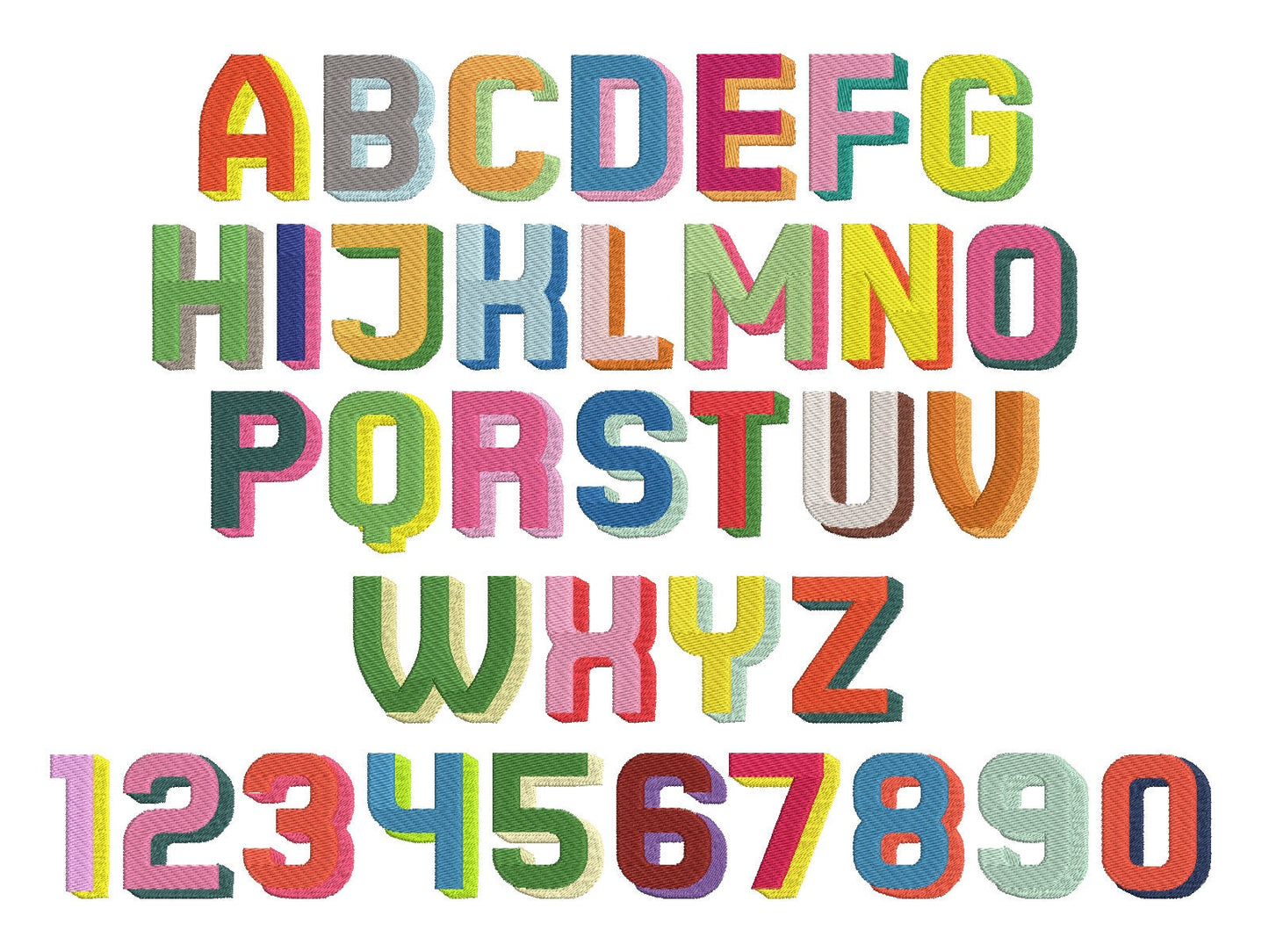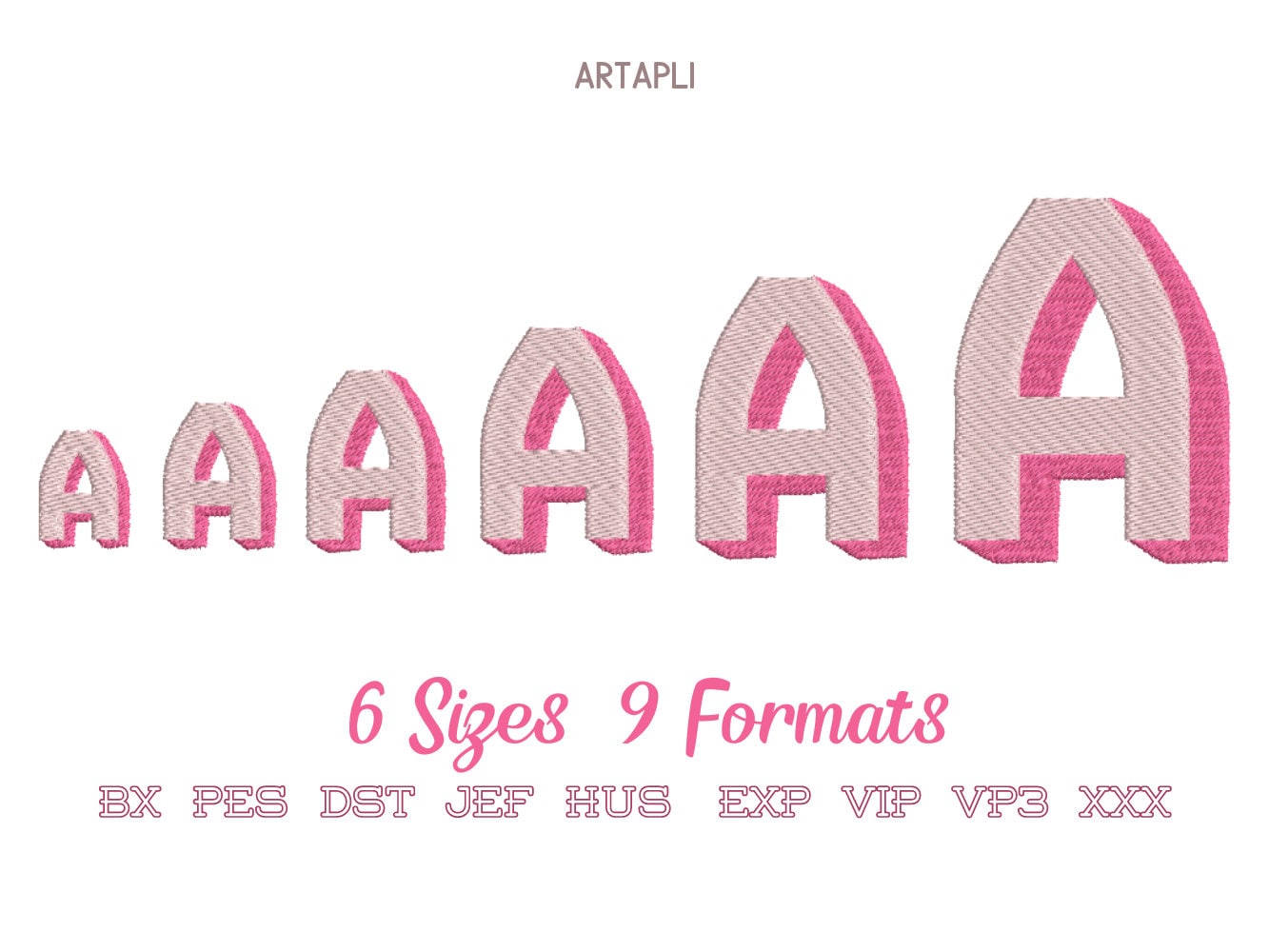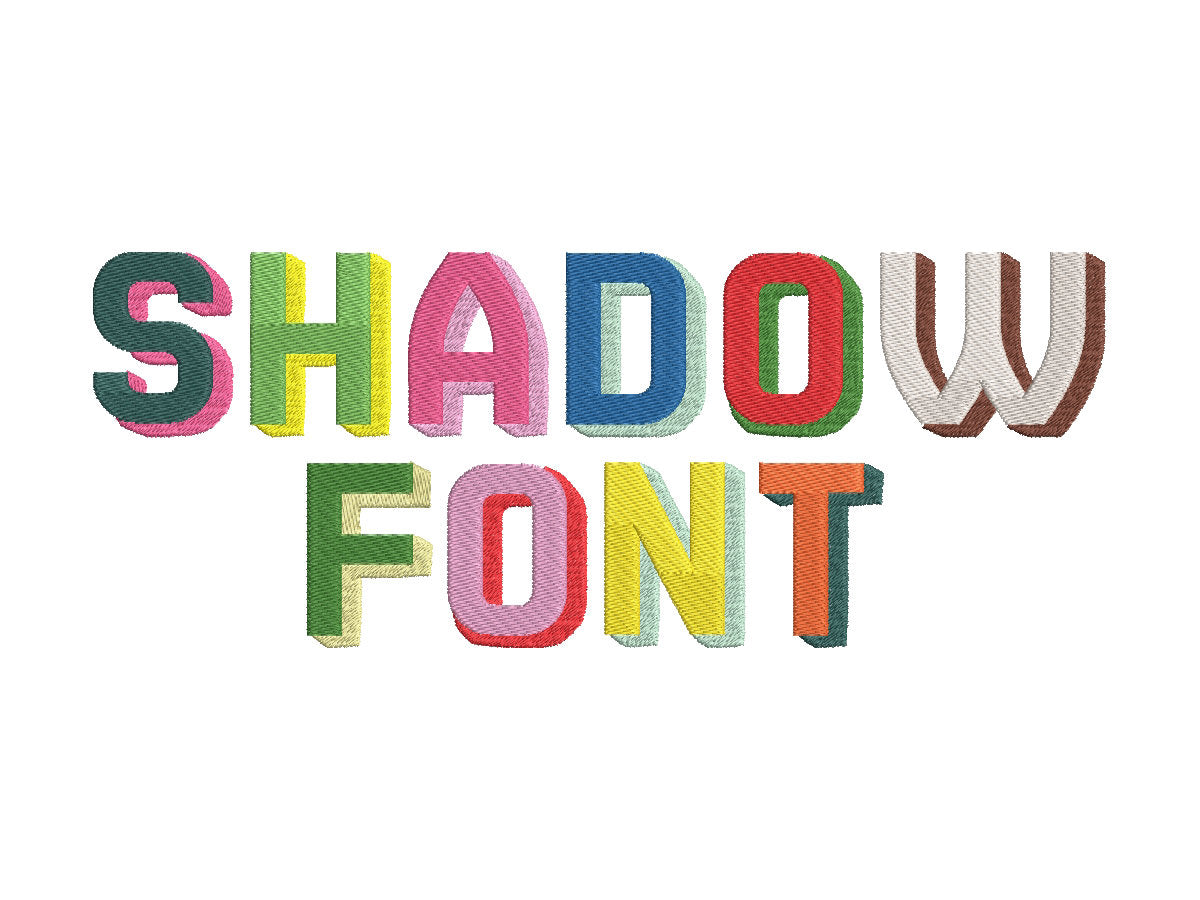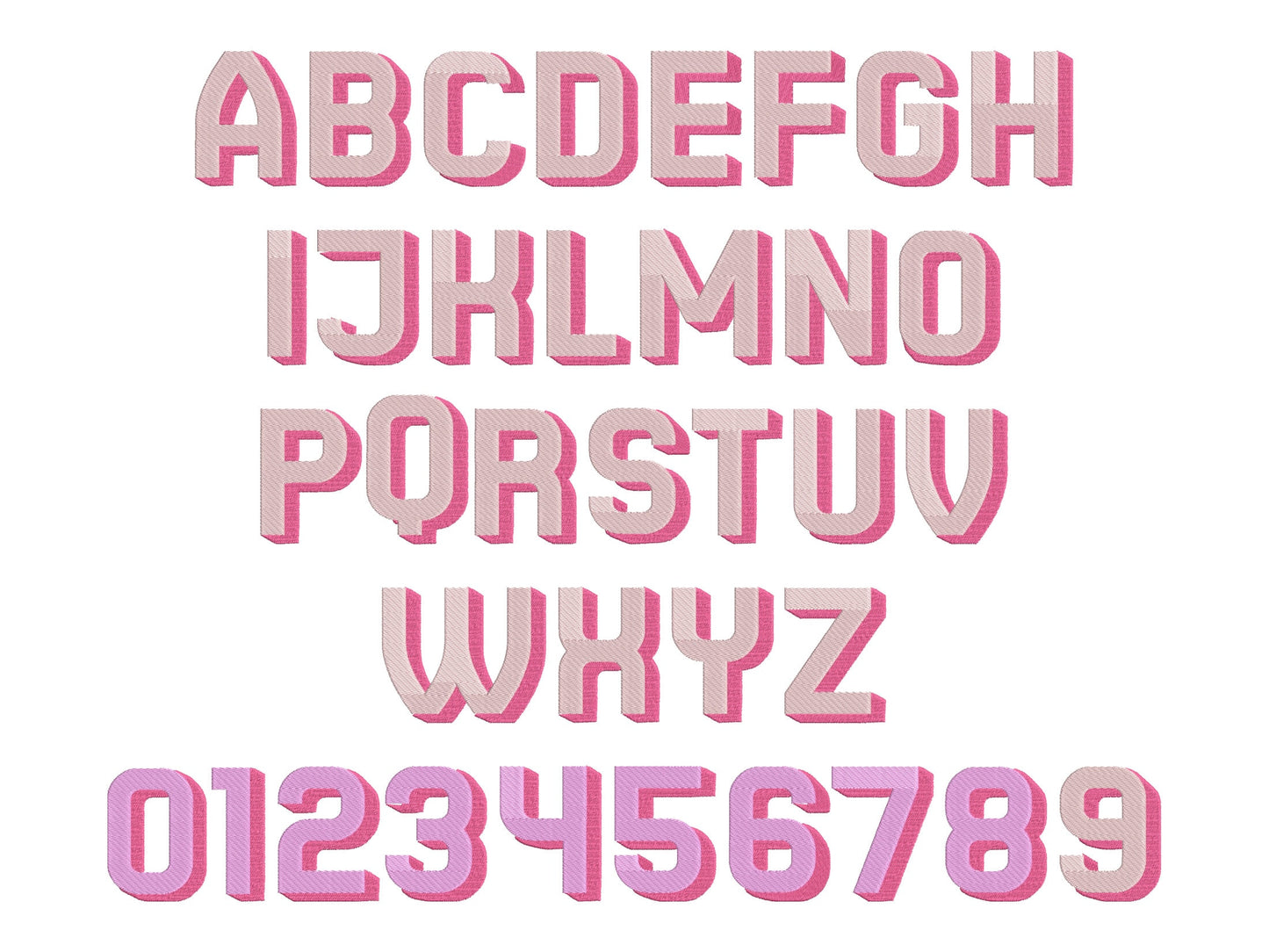
The fonts were great, minus the K. The K stitches out more like an H.
The only downside to this font is that the letter K very closely resembles and H. Otherwise I have no complaints--it stitched beautifully!
Looks great and stitched well.
Great font! Stitched out beautiful and so versatile!
This stitches out so so well! My machine got quite loud; I got worried for a moment, but it turned out so beautifully.
I love this font. I used it to embroider towels for a family lake trip. They turned out great.
lines arent clean and spaces between stitches can see fabric below. i tried multiple sizes and multiple fabrics and have same experience
The letters "H", "K", "X" are too similar once stitched out and all look like an "H". The curve that is shown in the pictures to help distinguish the "K" and "X" are not as visible once stitched.
Font embroideries out so nice. It takes a while to stitch but I run my machine slower than most do. I've used this font on several thick beach towels and it looks AMAZING!
Looks great on my tote bag
This font stitches out beautifully every time. It's especially great to use for large beach towels. LOVE IT!
Cute design and it stitched out great!
Great file for a simple summer look!
Very cute, stitches mostly really well
Perfect font for towels and everything summer
This shadow font stitches out beautifully!
Easy to download & such a cute font! Was just what I was looking for!